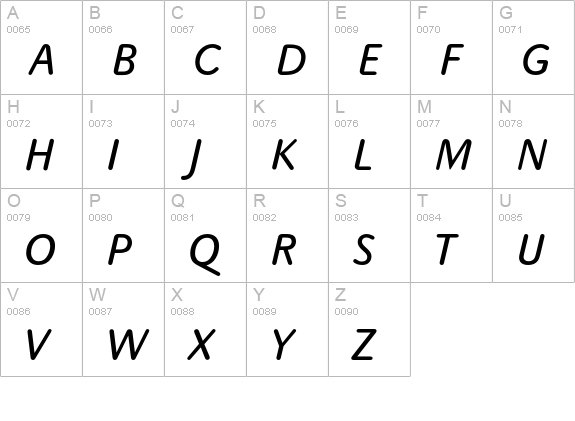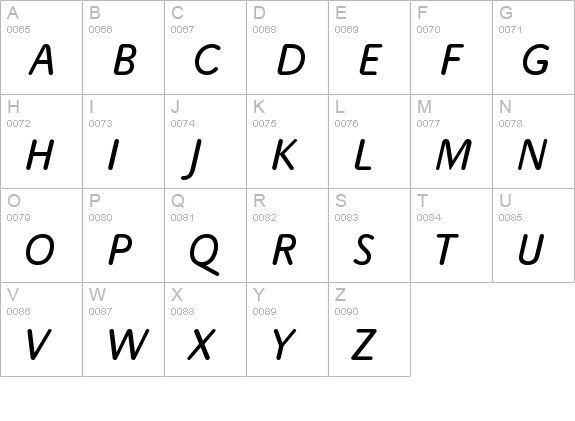
UlissaRounded-Italic is a distinctive, italic variant in the UlissaRounded typeface family \xE2\x80\x94 well suited to design and typography projects.
UlissaRounded-Italic is a unique and elegant font that embodies the perfect balance between professionalism and creativity. With its rounded edges and italicized style, this font adds a touch of sophistication to any design project. Whether you're working on a logo design, website, or even a branding project, UlissaRounded-Italic will elevate your work to new heights. Its smooth curves and slanted letterforms create a sense of movement and fluidity, capturing attention and creating a lasting impression. But what truly sets UlissaRounded-Italic apart is its accessibility. This font is freely available to download at FontsMarket.com, making it a valuable asset for designers on a budget. Now you can access high-quality typography without breaking the bank. Designed with versatility in mind, UlissaRounded-Italic is perfect for a wide range of applications. Its legibility ensures clear communication, while its stylish appearance adds a touch of personality. Whether used in print or digital media, this font will captivate your audience and leave a lasting impression. So why settle for ordinary when you can have extraordinary? Download UlissaRounded-Italic today at FontsMarket.com and take your designs to the next level. Don't miss out on this opportunity to enhance your creative projects with a font that is both stunning and freely available to all.